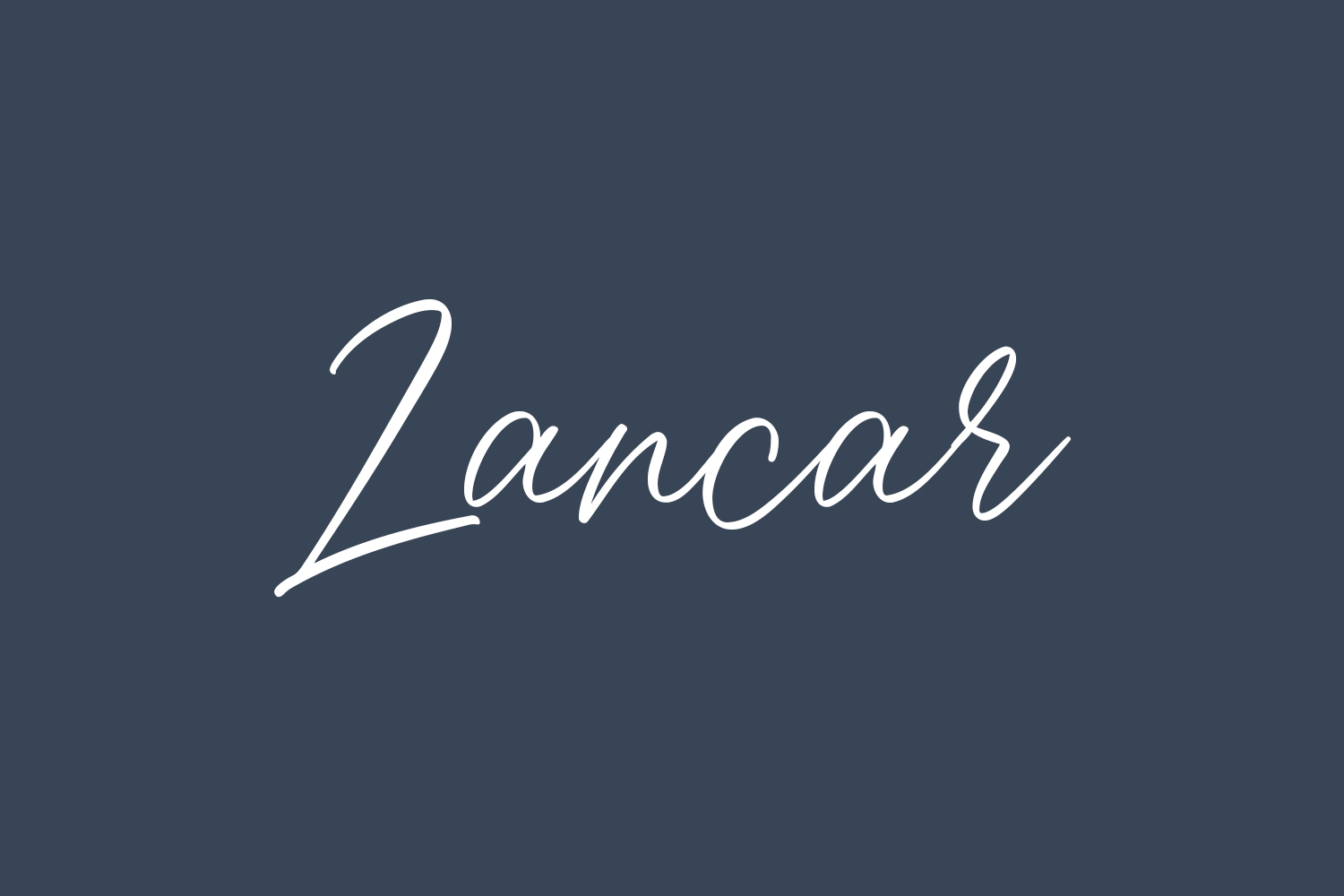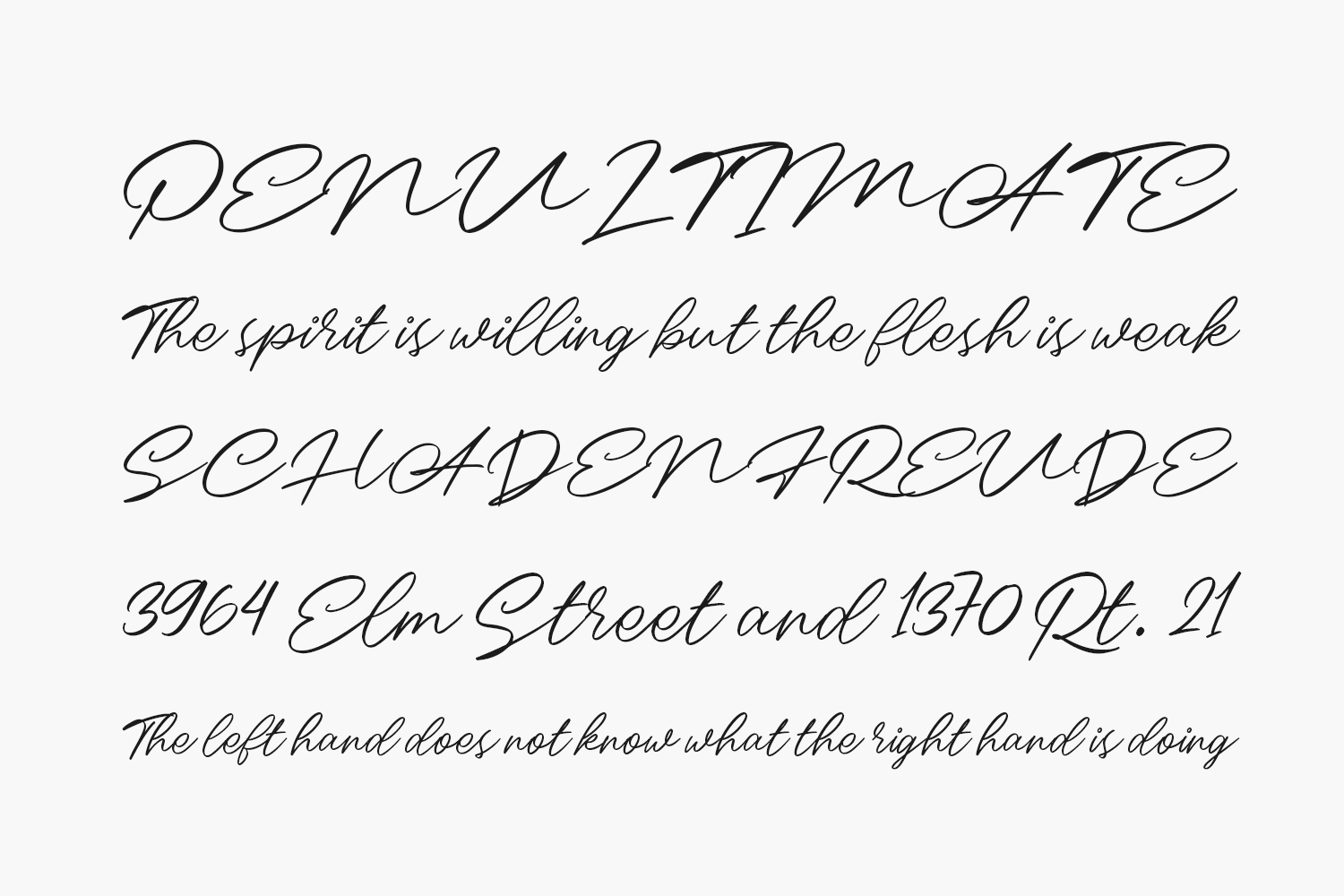
Lancar Free Font is a unique, elegant, and modern handwriting font. No matter the topic, this font will be an incredibly asset to your fonts’ library, as it has the potential to elevate any creation. Lancar Free Font was designed by Colative Studio and is free for personal use only. Please purchase the full version for commercial use.